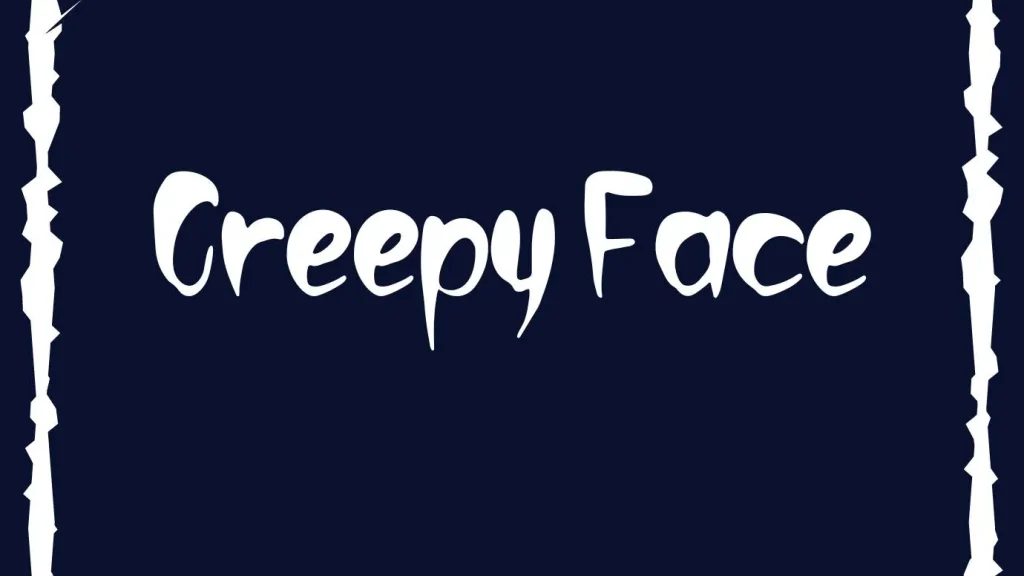
Creepy Face Font is a fancy text style that was created by Forberas Club. The font has been used in a variety of types of designs for many reasons. Your simple designs will look bold and stylish with it. Get the style and create unique fun plans.
The elegance of your proposed project may be improved by combining this font style design with other fonts. It is ideal for every project and contains various capital and lower sets.
You may utilize the sets of characters and distinct characters in these font stylings to create a variety of projects. This font is a fantastic choice when you’re searching for a multipurpose, simple-to-read font that will make your text stand out.
This is a flexible font that works well in a range of projects. The design is a wonderful choice whether you’re seeking a font with a contemporary design. This font may also be created and used in the online font generator tool. Giroud condensed font is the best combination to pair with this design to create new designs.
How to Utilize the Creepy Face Font for Web Design?
You’ll do your coursework introductions utilizing this typeface and make it more appealing to your instructors and classmates. The design can be used to create interesting covers, web designs, shop names, logos, and logos for shops, stores, and websites.
As well as branding projects, houseware designs, and packaging, the typeface is suitable for all types of projects such as animation movies, and comic series.
The typeface also can create stunning logos and branding materials. Projects that can be created with this typeface include webpages, logos, and more. Due to its extra bold characters, it works well for titles and headings of various types of websites, blogs, and web pages.
| Name | Creepy Face Font |
| Designer | Forberas Club |
Adaptable Creepy Face Font
Although the angled design works better for subtitles and message bodies, the form is best for headers and banners. A typeface is an excellent option if you’re searching for a beautiful font that will create your creations shine.
Any kind of project design can be done with this program. It has all the features that are needed. This is a tremendous option for developing powerful and fashionable graphics.
Your upcoming design project will surely become more exciting with the use of this amusing and happy typeface. You ought to have given it a go and enjoyed yourself.
This typeface may also be used to create innovative greeting cards, weblog patterns, marketing concepts, letterhead layouts, graphics, card designs, cushion designs, mug designs, and other things.
What kind of textual style is Creepy Face?
This gorgeous typeface has a place in the category of a fancy font the design has unique texture to make content.